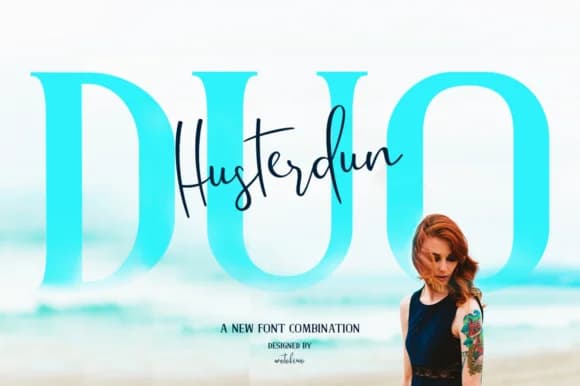
Husterdun Font by motokiwo is a contemporary pairing of serif and script typefaces designed to bring refined elegance and visual interest to sophisticated creative projects. The complementary duo works seamlessly across various layouts, allowing you to layer both styles strategically or alternate between them depending on where emphasis is needed and what mood you want to establish throughout your composition.
This typeface combination excels in premium branding contexts, particularly in creating luxury skincare labels and artisanal product packaging that demands upscale visual presence. Wedding invitation suites, formal event announcements, and boutique brand identities benefit significantly from the pairing's sophisticated character. The flowing script component captures attention as striking headlines and decorative flourishes, while the grounded serif provides steady readability for body text and supporting information, creating natural hierarchy within designs.
Whether you're developing a distinctive brand for a boutique jewelry line, designing elegant menu cards for fine dining establishments, or producing custom packaging for high-end goods, Husterdun's balanced aesthetic adapts seamlessly across applications without compromising visual cohesion. The dual-font system eliminates the challenge of pairing unrelated typefaces, delivering both expressive character and structural stability in one thoughtful package. Get the complete font family on Creative Fabrica and explore how Husterdun can enhance your next creative project.
- Elegant, Flowing, Husterdun Script
Husterdun Font is a script font that shines as a display or heading face. Pair it with a clean sans-serif or serif font for body text β the contrast creates a clear hierarchy while the two styles stay balanced and easy to read.
Husterdun Font